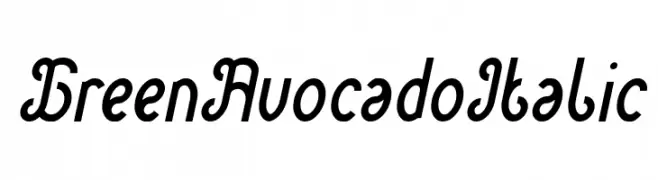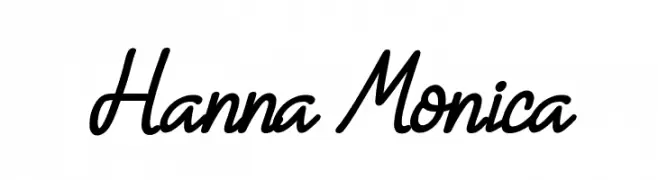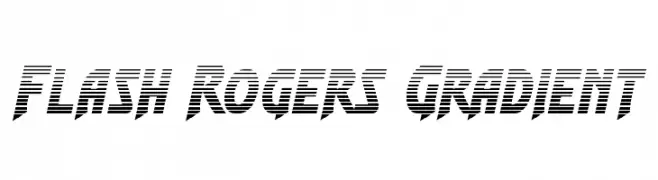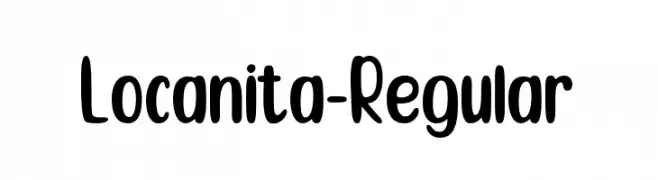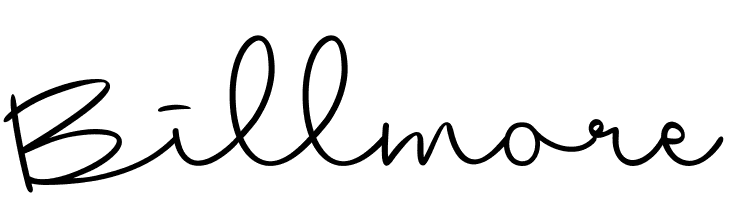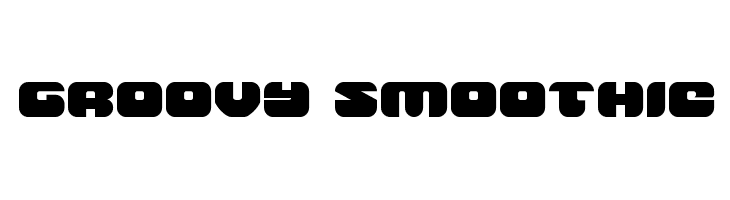
A bold, shadowed font with a playful, decorative style.
A playful, italic font with rounded characters and consistent stroke width.
A semi-condensed serif font with a semi-bold weight and medium contrast, offering a modern yet classic look.
A decorative font with characters inside flower-shaped outlines.
A lively script font with fluid, connected strokes and elegant loops.
A casual, handwritten script font with smooth, flowing characters.
A bold, futuristic font with a gradient effect and dynamic angular shapes.
A bold, narrow serif font with a modern twist and strong vertical emphasis.
A lively, cursive font with flowing, expressive characters.
A playful, rounded font with smooth curves and a friendly appearance.